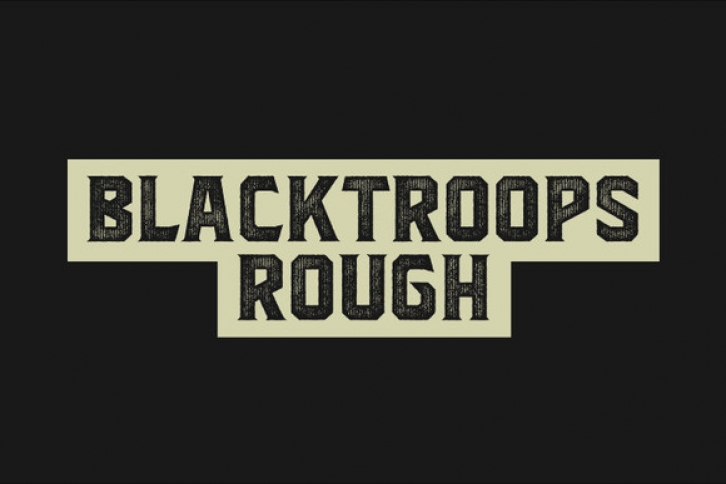
Blacktroops Rough is a grunge distressed version from the blacktroops family.  This Rough typeface can be used for various purposes such as: headings, logos, posters, book covers, mugs, bags, news papers, invitations and much more!